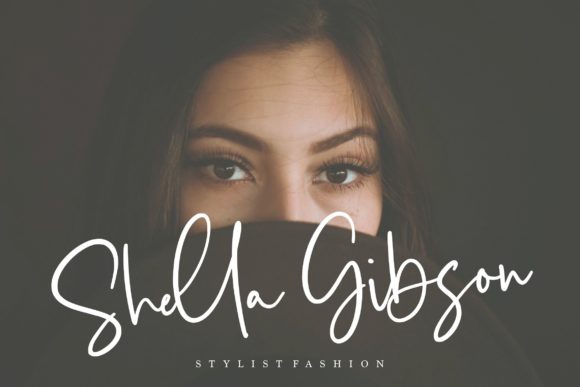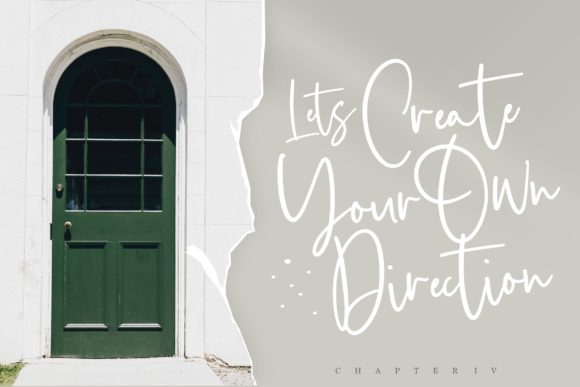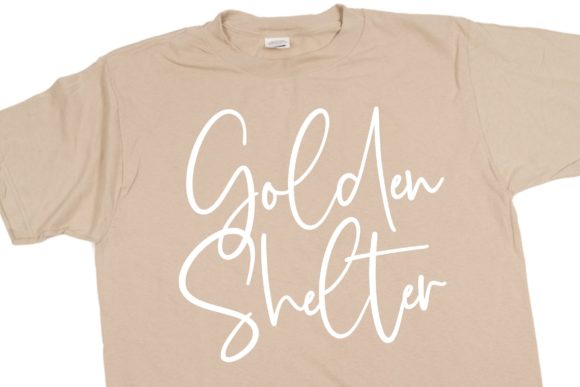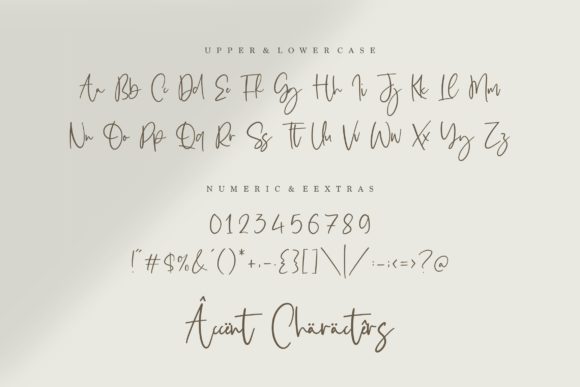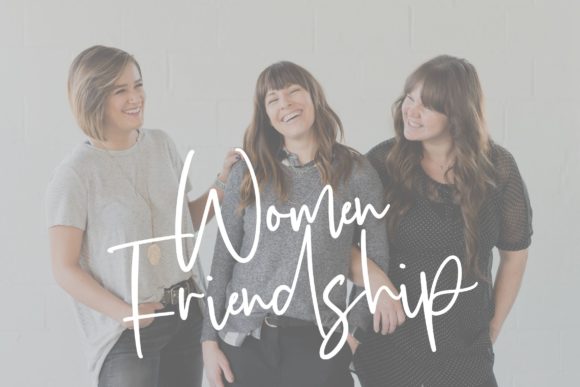
Introduction to Obladi Script Font
Have you ever been working on a creative project and suddenly, you need the perfect font to bring your design to life? It’s that moment when you’re stuck in a sea of generic fonts, and you just can’t seem to find the right one. Well, let me tell you, that moment is about to become a thing of the past. Enter the Obladi Script Font, a lovely and timeless handwritten font that will elevate your design to new heights.
As a designer, you understand the importance of having high-quality design resources at your fingertips. The Obladi Script Font is just that – a valuable addition to your design arsenal that will make your creative projects stand out from the crowd. Whether you’re creating a logo, branding, or quotes, this font is sure to add a touch of elegance and sophistication to your work.
Key Features of Obladi Script Font
- High-quality, handwritten design perfect for creative projects, including invitations, posters, and more.
- Unique, cursive script style that adds a touch of elegance and sophistication to any design project.
Honest Review: Obladi Script Font
As a designer, I’m always on the lookout for high-quality design resources to elevate my creative projects. Recently, I stumbled upon the Obladi Script Font, and I’m excited to share my honest review with you.
What works well: ✨ The Obladi Script Font has a beautiful, hand-written feel that’s perfect for adding a personal touch to your designs. The font is highly legible, making it great for body text, while its elegant style makes it ideal for titles and headings.
Here are some key features of the Obladi Script Font:
- High-quality design: The font has a crisp, clear appearance that’s perfect for print and digital designs.
Limitations: ⚠️ While the Obladi Script Font is a great addition to any design resource library, it’s not without its limitations. The font is only available in a single style, which may limit its versatility in certain designs.
Overall, I’m impressed with the Obladi Script Font and would highly recommend it to designers looking for a high-quality, creative font for their projects.
Tips for Getting the Most Out of Obladi Script Font
Use the Obladi Script Font to add a touch of elegance and sophistication to your designs. This high-quality font is perfect for creative projects, such as wedding invitations, birthday cards, and social media graphics. Make sure to pair the font with a transparent background to create a clean and minimalist look.
The Obladi Script Font is ideal for use in design projects that require a creative and eye-catching font. Some common use cases include:
- Wedding invitations and wedding stationery
- Birthday cards and party invitations
- Blog headers and titles